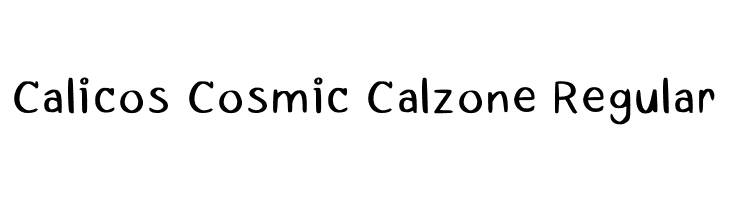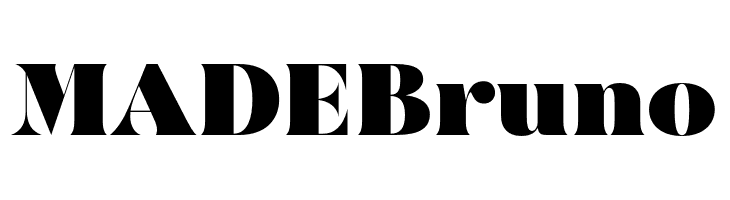
A bold, high-contrast font with a modern and dramatic style.
A playful, bold handwritten font with rounded, irregular shapes.
A flowing, cursive font with elegant, connected strokes and balanced proportions.
A bold, grungy font with jagged edges and a chaotic, hand-drawn style.
A bold, geometric typeface with a modern and impactful style.
A bold, geometric font with a futuristic, digital aesthetic.
A pixelated, LED-style font with a retro digital aesthetic.
A modern, geometric sans-serif font with uniform stroke width and rounded edges.